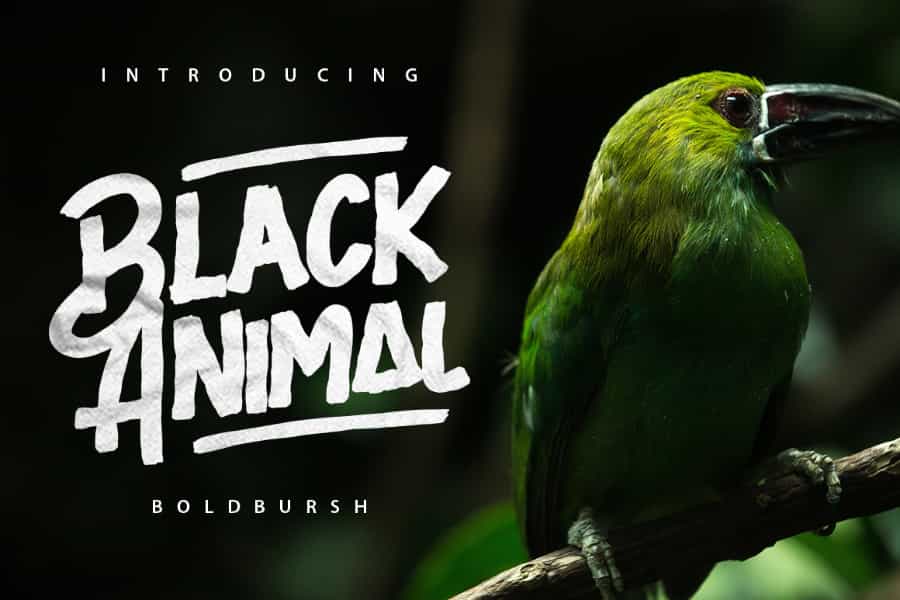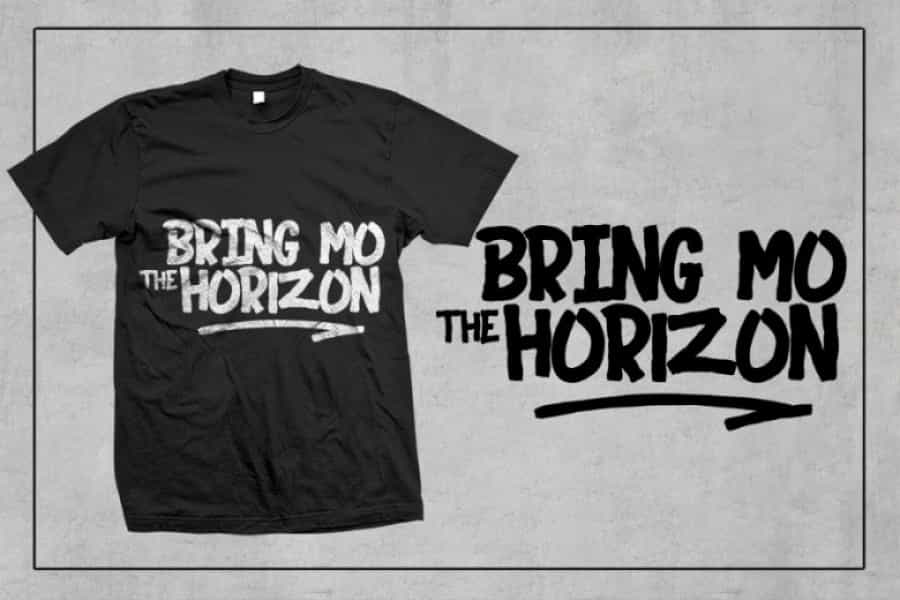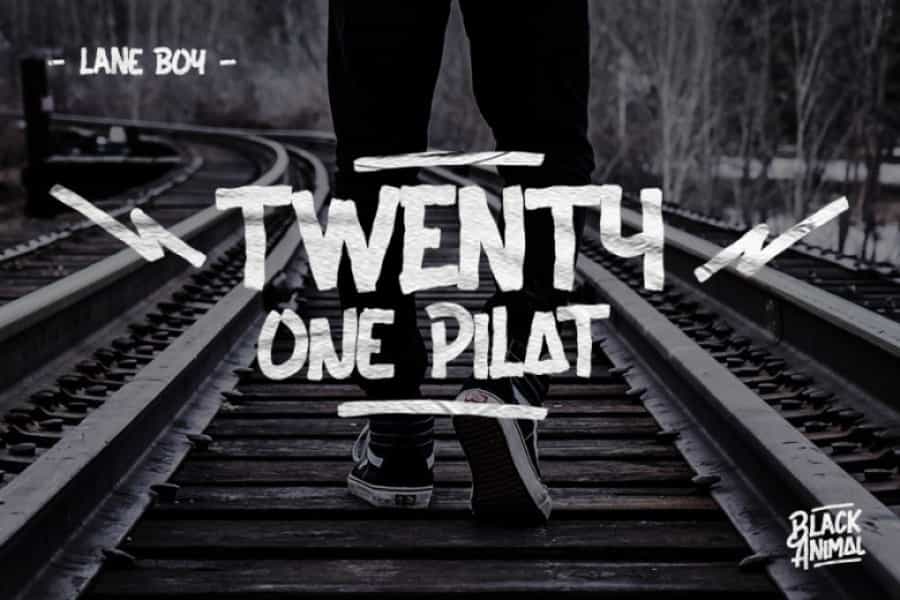
This category of the font is identified as a handwritten brush style font and the name is Black Animal. As it is used for nametags, logos, handwritten messages and greeting cards and easily designing the T-shirts and other products Black Animal is useful font that can be used in various conditions.